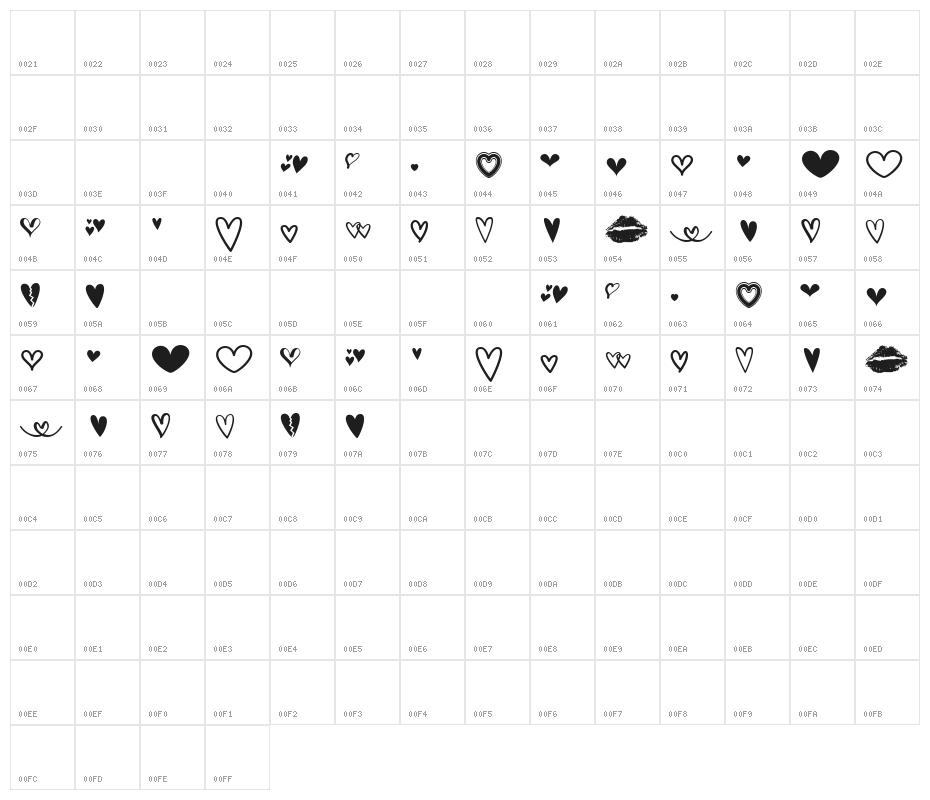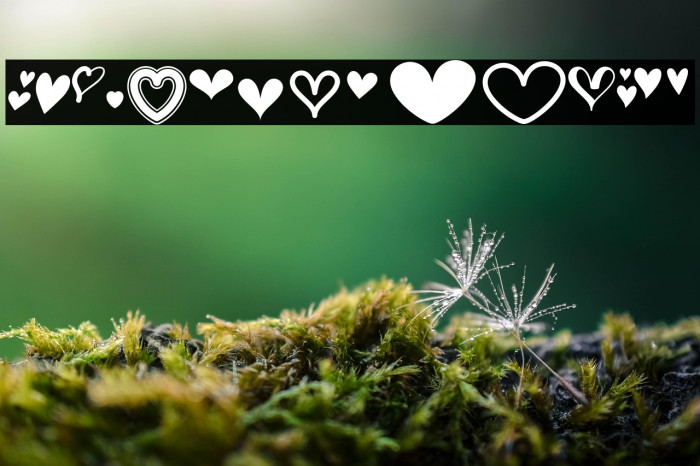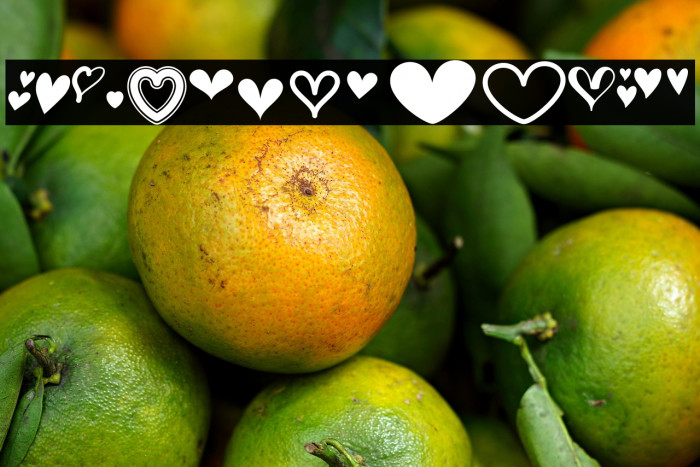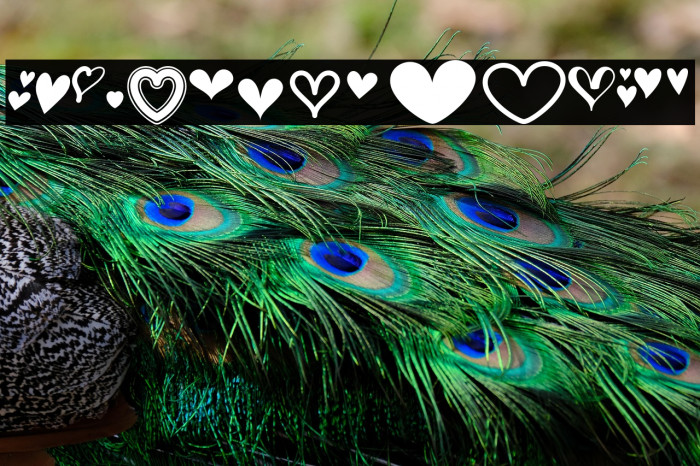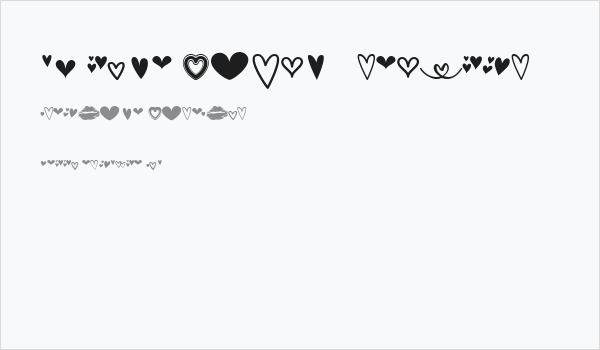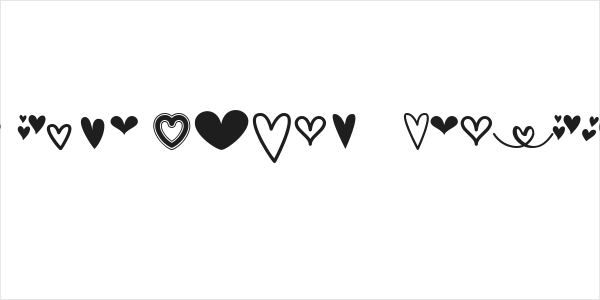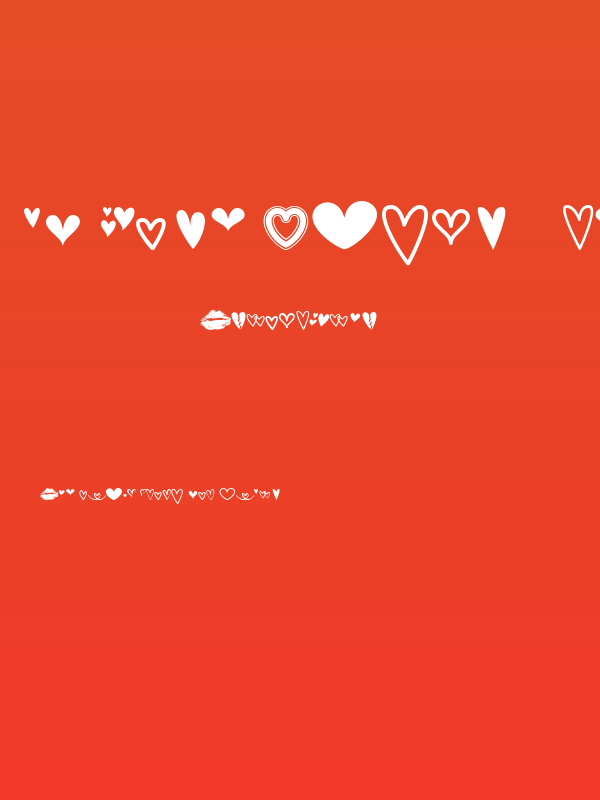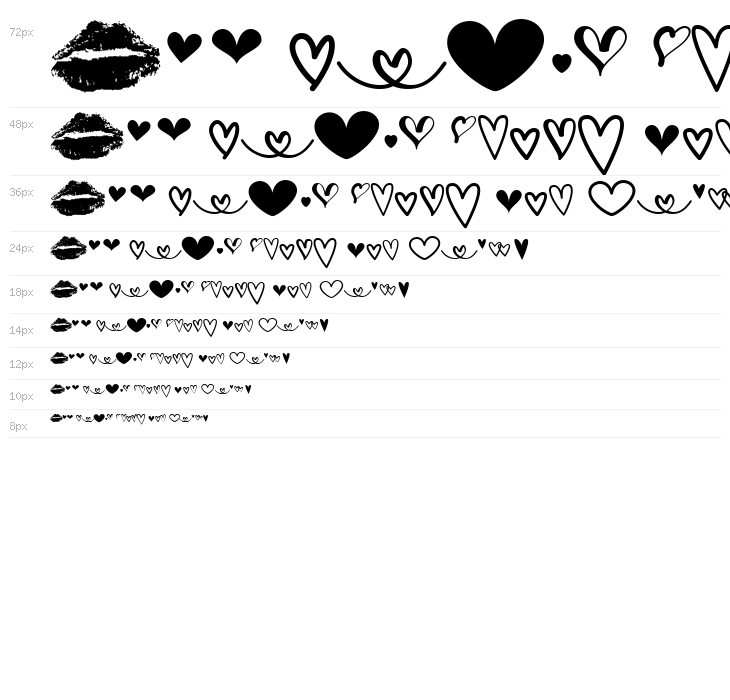
MF Love Dings 2 Regular Font
MF Love Dings 2 Regular Description
This collection of symbols features a variety of heart shapes and designs, ranging from simple outlines to solid forms. The symbols include hearts with different styles, such as broken hearts, double-layered hearts, and small accent hearts. Additionally, there is a distinctive lip print symbol, adding a playful and romantic touch to the set. These symbols are bold and visually striking, making them ideal for decorative purposes. The consistent theme of love and affection is evident throughout the collection, making it suitable for projects that require a romantic or whimsical element.
| Use Case | Logos, Decorative elements |
| Proposed Projects | Ideal for Valentine's Day cards, wedding invitations, love-themed posters, and decorative crafts. |